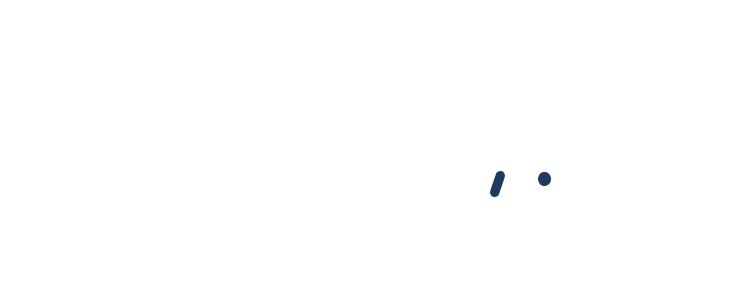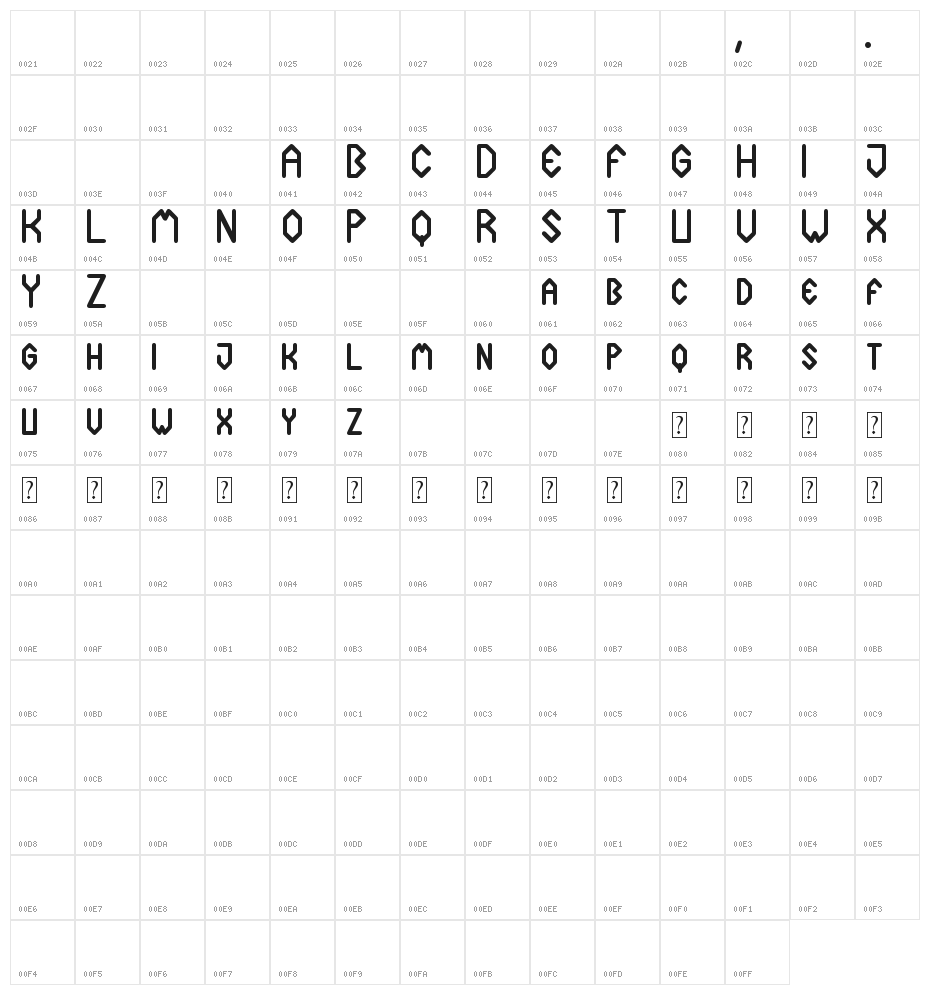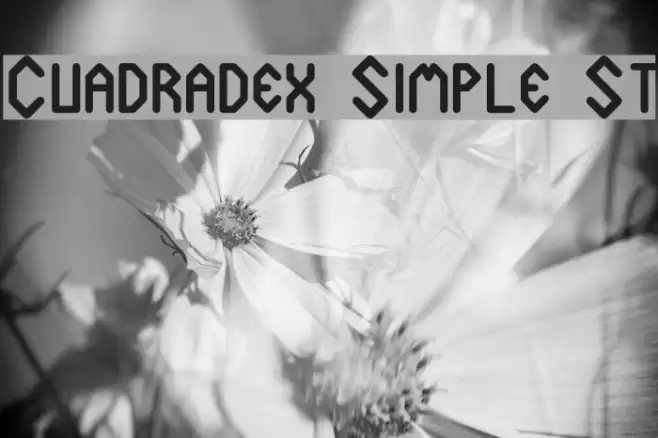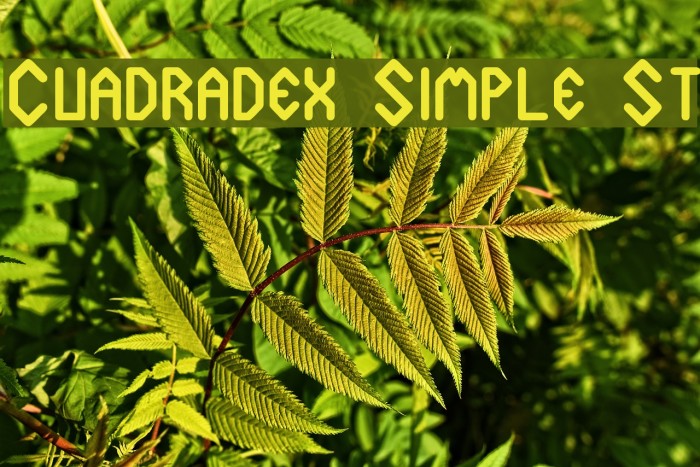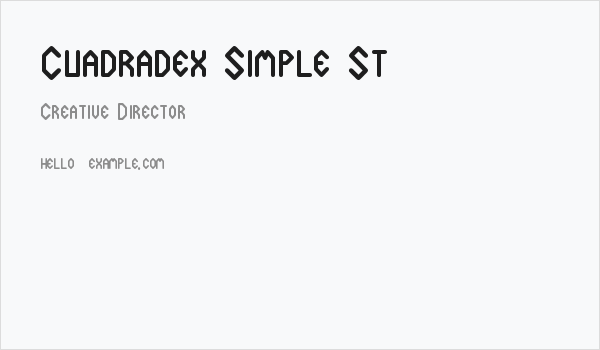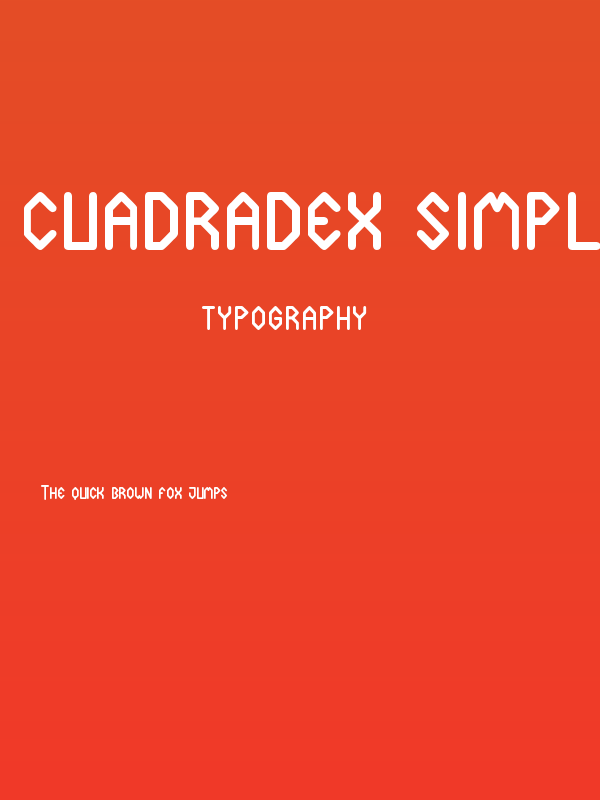
Cuadradex Simple St Font
Cuadradex Simple St Description
This font features a geometric and structured design, characterized by its bold, block-like appearance. Each character is crafted with a consistent stroke width, creating a uniform and cohesive look. The letters are angular with sharp corners, giving it a modern and industrial feel. The uppercase letters maintain a consistent height, while the lowercase letters are absent, suggesting a focus on uppercase usage. The numerals and special characters follow the same design principles, ensuring a harmonious overall appearance. This font's simplicity and clarity make it highly legible, even at smaller sizes.
| Proposed Projects | Ideal for branding, signage, posters, and any project requiring a strong, modern typeface. |